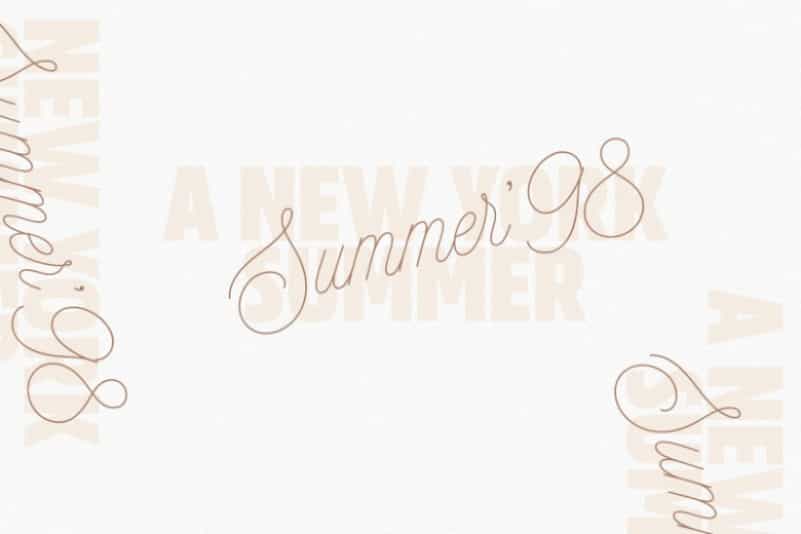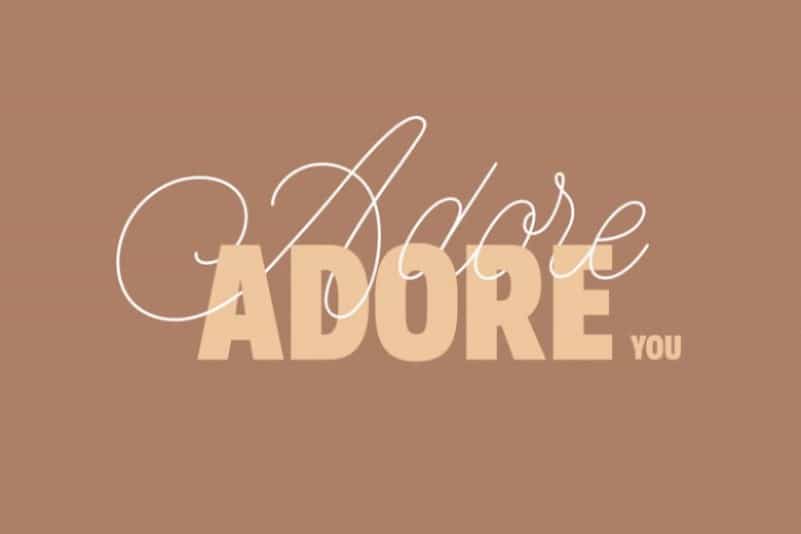
MADE Florence is a beautiful pair of font duo, Florence will be perfect for many projects: design, fashion, magazines, logo, branding, photography, invitations for weddings, quotes, blog titles, posters, advertising, etc.